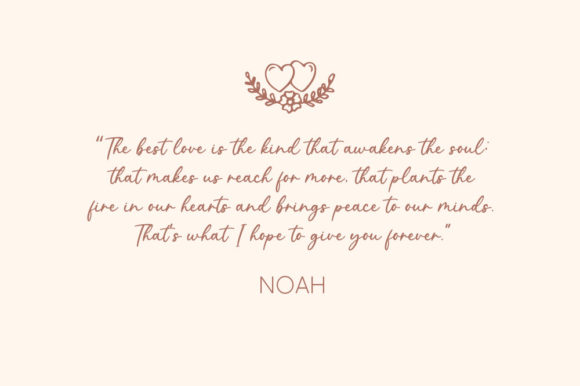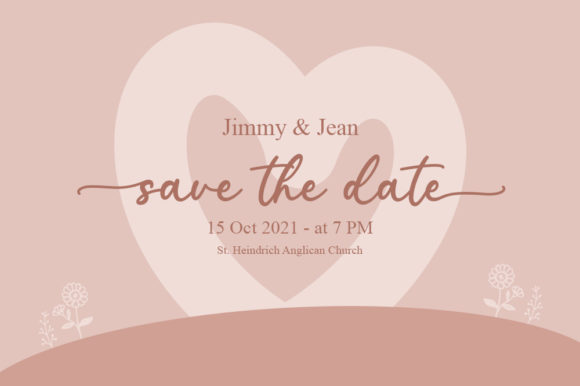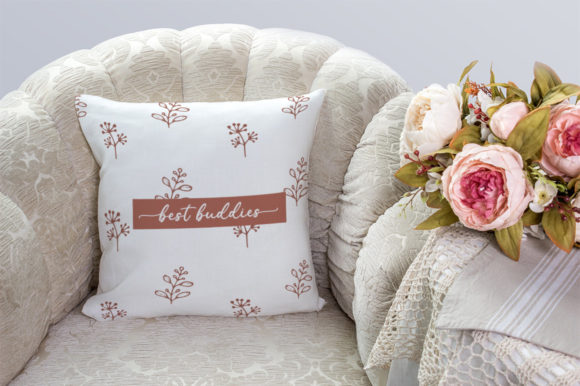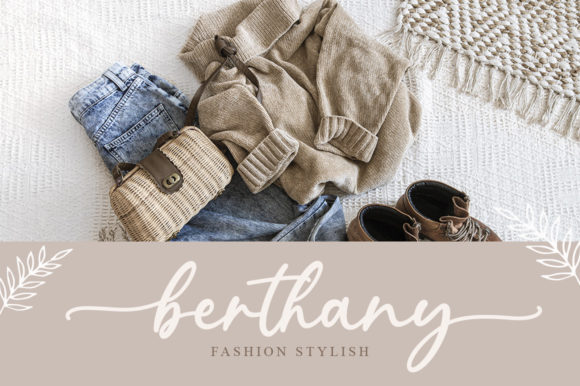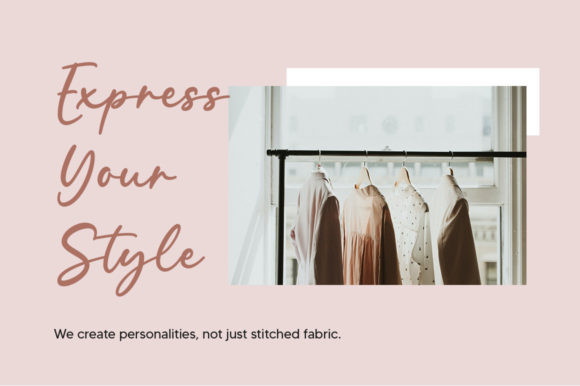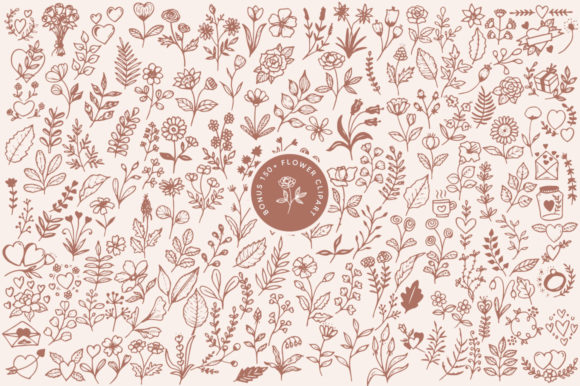
The Perfect Petal: Unveiling the Beauty of Blooming Font
Have you ever sat at your desk, staring blankly at your computer screen, searching for that elusive spark of inspiration? It’s a moment we’ve all experienced at some point or another, when the blank page in front of us seems to mock our very creative existence. But what if I told you that the solution lies not in the ideas themselves, but in the tools we use to bring them to life?
Enter the Blooming Font, a stunning script font that captures the essence of elegance and refinement. With its delicate petals and flowing lines, this PUA encoded font is the perfect addition to any designer’s toolkit. Whether you’re crafting a wedding invitation, a luxury brochure, or a elegant business card, the Blooming Font is sure to bring a touch of sophistication to your designs.
Blooming Font Key Features
- Font Family: Blooming Font is a unique, hand-drawn font family that includes 6 different fonts with various styles and ornaments.
- Character Set: Includes a wide range of characters, including uppercase and lowercase letters, numbers, punctuation marks, and special characters.
- Unique Characteristics: Features delicate, hand-painted brushstrokes and intricate details that give the font a whimsical, organic feel.
Blooming Font Review
As a designer, I was excited to dive into “Blooming Font”, a new font family that promises to bring a touch of elegance and sophistication to any design project. Here’s my honest review:
- Unique, hand-crafted style that adds a personal touch to designs
- Excellent legibility, even at small font sizes
- Comprehensive character set, including a wide range of languages and special characters
- Limited support for vertical text layouts, which may be a concern for designers working on Asian-language projects
- No bold or italic versions of the font, which can limit design flexibility
- Some users may find the font’s unique style to be too ornate or overwhelming in certain contexts
Blooming Font is a solid addition to any designer’s toolkit, offering a distinctive and versatile style that’s perfect for a wide range of design projects. While it may not be ideal for every use case, its strengths far outweigh its limitations, making it a worthwhile investment for designers looking to elevate their work.
Use Blooming Font for creative projects, such as:
– Wedding invitations
– Event promotions
For best results, use Blooming Font in combination with other creative elements, such as illustrations and graphics.
Alternatives to Blooming Font for Designers
1. Dancing Script Font
Dancing Script Font is a elegant, cursive font ideal for adding a touch of sophistication to designs, especially in the fields of fashion, beauty, and luxury. It’s perfect for creating a high-end feel and is suitable for use in logos, branding, and marketing materials.
Compared to Blooming Font, Dancing Script Font has a more refined and polished look, making it suitable for a wider range of applications.
Carolyna Pro Font is a modern, elegant script font designed for use in various design fields, including fashion, beauty, and branding. It features a unique, flowing style that adds a touch of sophistication to designs.
Carolyna Pro Font is similar to Blooming Font in terms of its elegant and sophisticated look, but it has a more modern and sleek feel.
Great Vibes Font is a beautiful, handwritten font ideal for creating a relaxed and casual feel in designs. It’s perfect for use in branding, marketing materials, and social media graphics.